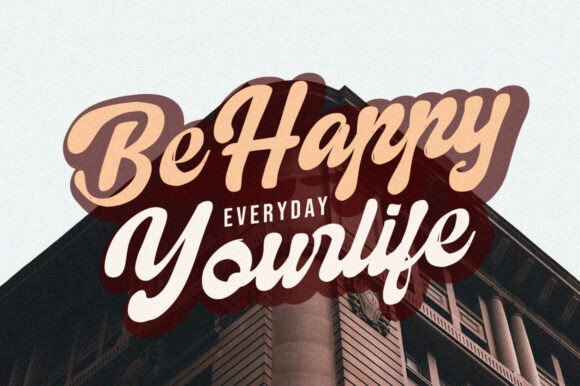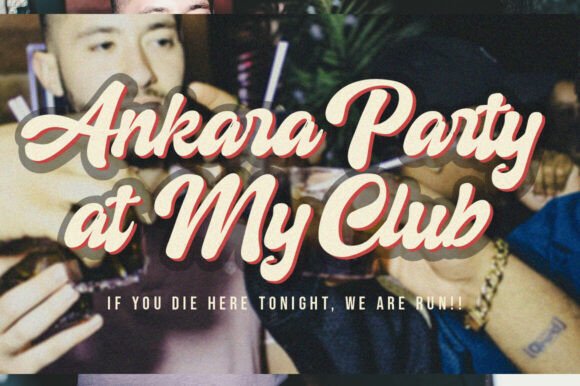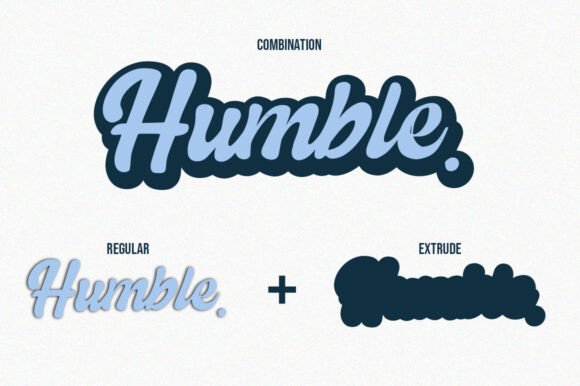
Introduction to Simpson Font
Have you ever stumbled upon an old, worn-out sign on a beachside boardwalk, and felt instantly transported to a carefree summer afternoon? That’s the magic of the Simpson Font, a retro-style typeface that captures the essence of a bygone era. Its soft calligraphy elements and tropical design make it the perfect choice for designers looking to evoke a sense of relaxation and nostalgia in their creative projects.
For designers, the Simpson Font is a valuable resource that can add a touch of personality to their work. Whether you’re working on a free download project or a high-quality design for a client, this font is sure to bring a smile to your face. With its transparent background and flowing characters, it’s the perfect choice for summer-themed branding, posters, or products that exude a sense of warmth and coziness.
As a design resource, the Simpson Font offers endless possibilities for creative expression. Its versatility makes it an excellent choice for designers working on a variety of projects, from beach-themed branding to vintage-inspired posters. With the Simpson Font, you can bring a touch of the past to your designs and make them truly unforgettable.
Key Features of Simpson Font
- Unique, hand-drawn style with a transparent background, perfect for adding a personal touch to designs.
- Available in a single size, ideal for use in logos, typography, and other design elements where consistency is key.
- Resolution-independent, allowing for seamless use at various scales and resolutions.
- Part of a larger collection of fonts, offering a wide range of design possibilities and creative freedom.
Honest Review: Simpson Font
I recently stumbled upon the Simpson Font while searching for a unique font for a creative project. As a designer, I’m always on the lookout for high-quality design resources that can elevate my work.
- The Simpson Font is a beautiful, elegant script font that is perfect for adding a touch of sophistication to any design.
- The font is highly customizable, with a range of weights and styles to choose from, making it versatile for various design applications.
- The free download option is a major plus, making it accessible to designers of all levels and budgets.
- The Simpson Font may not be suitable for designs that require a bold, sans-serif font.
- The transparent background option can be tricky to work with, requiring some extra design effort to achieve the desired effect.
Overall, I’m impressed with the Simpson Font’s high quality and creative possibilities. While it may have some limitations, it’s definitely a valuable addition to any designer’s toolkit.
Tips for Getting the Most Out of the Simpson Font
To get the most out of the Simpson Font, use it in conjunction with other design elements, such as shapes and graphics, to create a unique and eye-catching design. Experiment with different font sizes, colors, and styles to find the perfect look for your creative project.
The Simpson Font is particularly useful for creating logos, icons, and graphics with transparent backgrounds. It’s also a great choice for presentations, reports, and other documents that require a unique and eye-catching font.